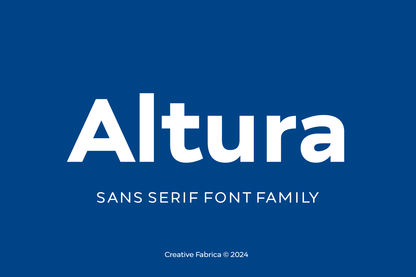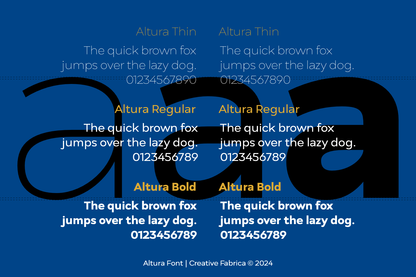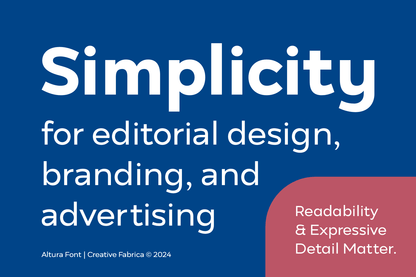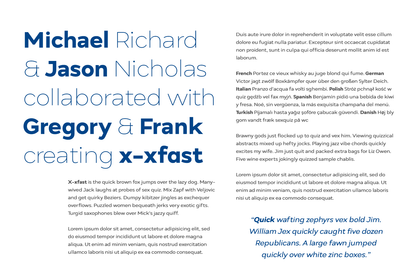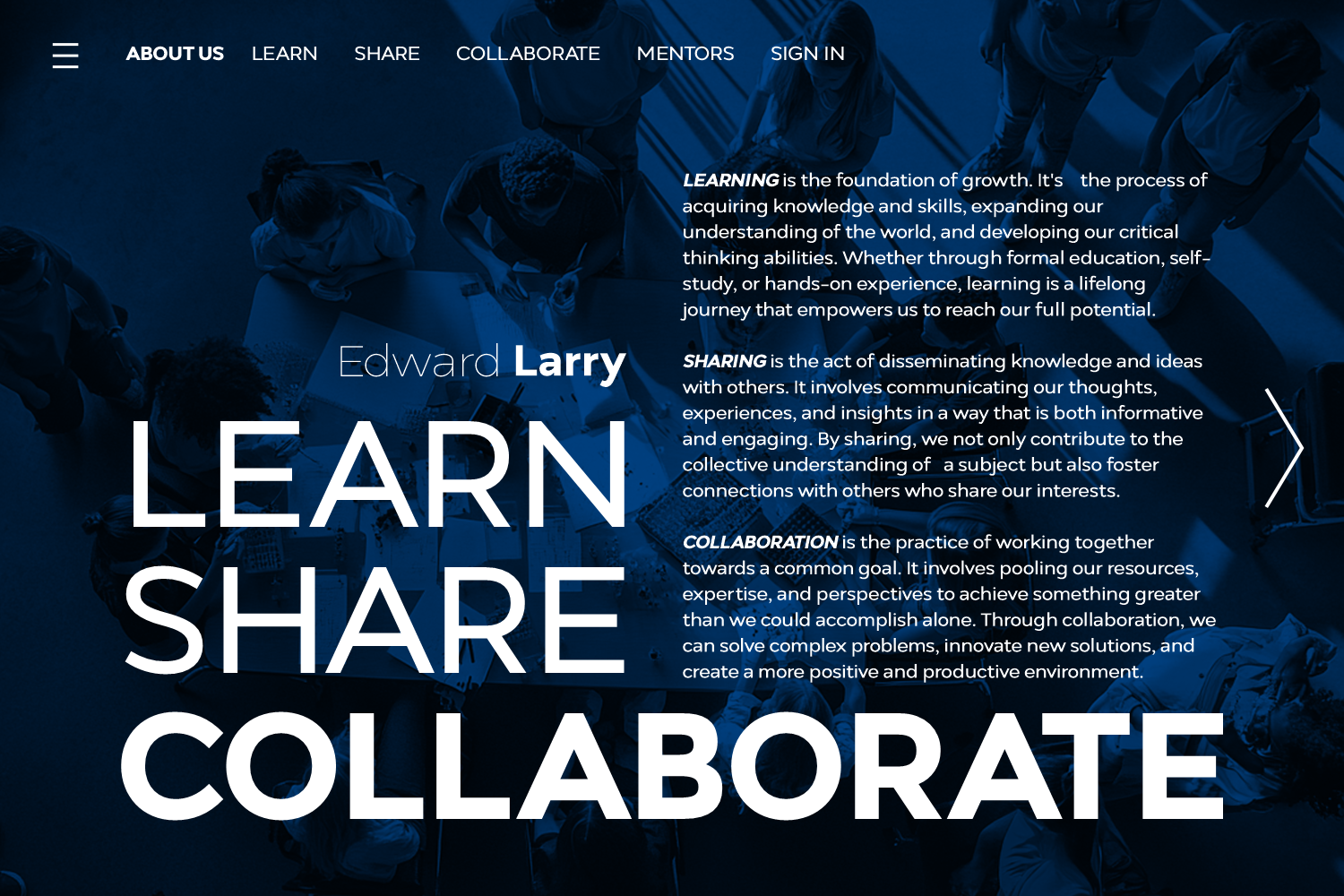
Altura is a modern sans-serif typeface inspired by the elegance and functionality of Montserrat. With its geometric structure, refined proportions, and subtle details, Altura strikes the perfect balance between sophistication and versatility. Ideal for branding, web design, and editorial projects, Altura’s clean and timeless aesthetic ensures maximum readability and impact across all mediums. Whether used for bold headlines or supporting text, Altura elevates every design with its polished, professional appearance.